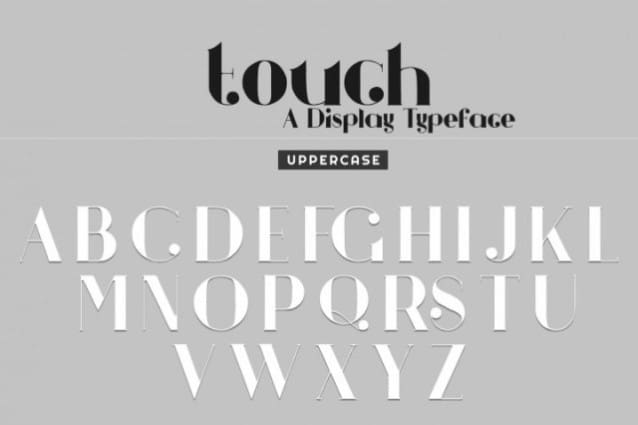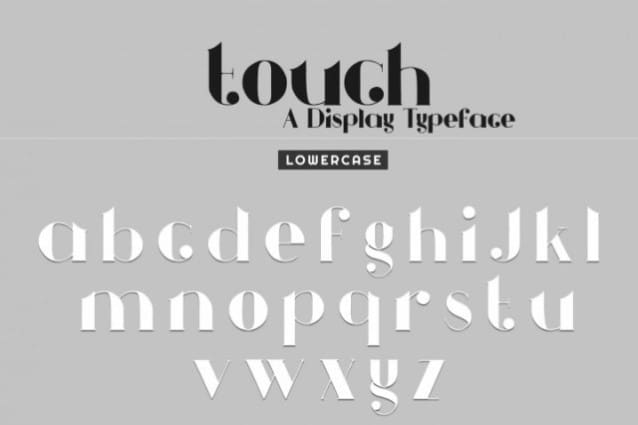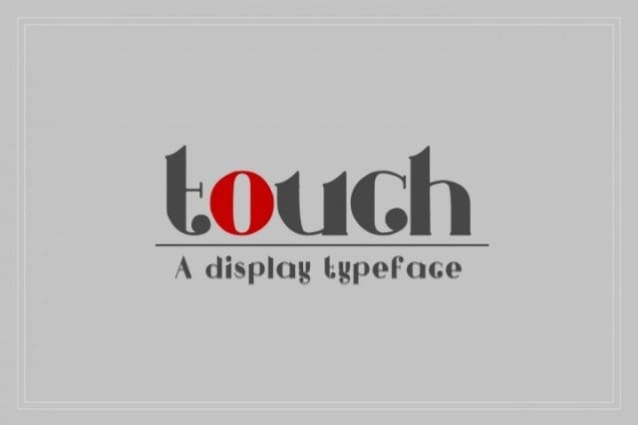
The Touch is a striking display typeface. It includes soft and gentle shapes which add a modern touch to your design.
Touch – A Display Typeface
| Classification: | Retro / Vintage Fonts, Serif Fonts |